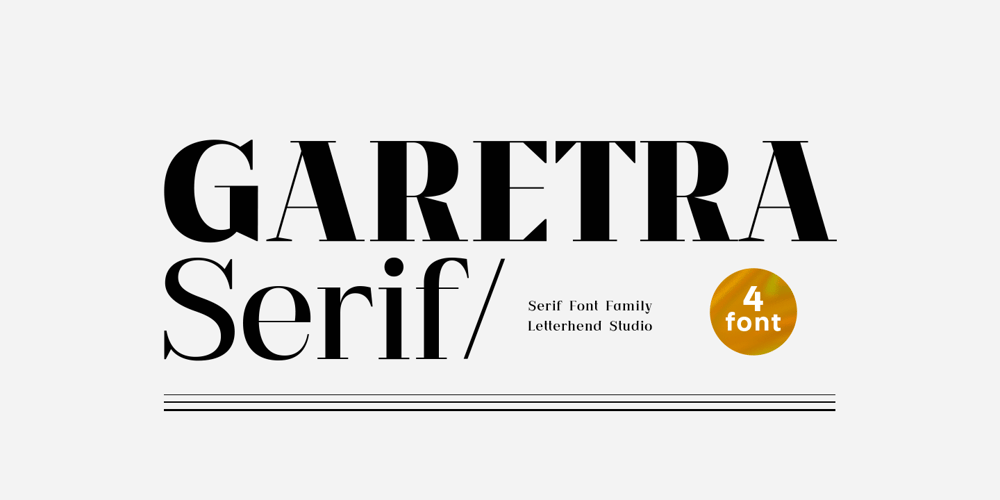
Garetra
Garetra font
Garetra Font Family was designed by Hendry Juanda and published by Letterhend. Garetra contains 4 styles and family package options. Garetra Serif s a sophisticated serif with many weight you can choose. It has 4 weight styles which you can play around to match your project, whether for a standout headline, or for a tagline, you name it. Perfect to be applied to the other various formal forms such as invitations, labels, logos, magazines, books, greeting / wedding cards, packaging, fashion, make up, stationery, novels, labels or any type of advertising purpose.Features : uppercase & lowercase numbers and punctuation multilingual alternates & ligatures PUA encoded We highly recommend using a program that supports OpenType features and Glyphs panels like many of Adobe apps and Corel Draw, so you can see and access all Glyph variations. How to access opentype feature : letterhend.com/tutorials/using-opentype-feature-in-any-software/